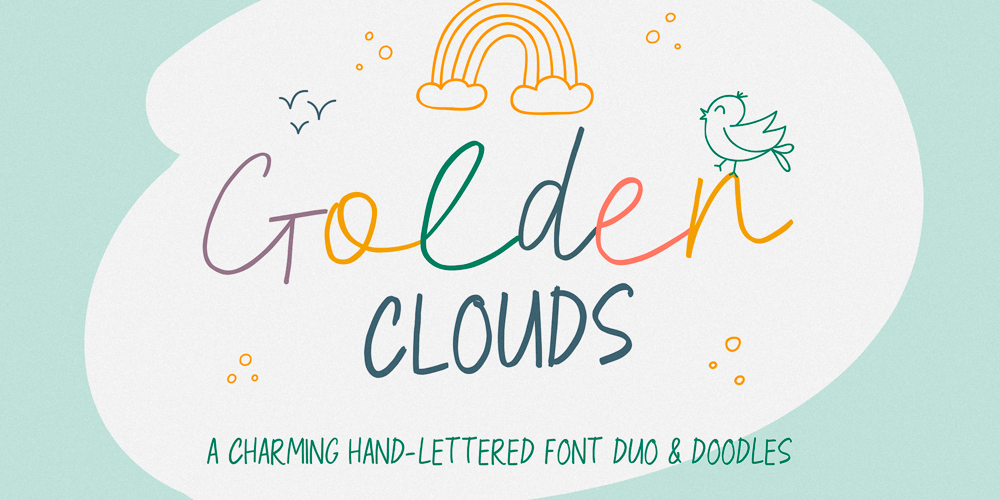
Golden Clouds
Golden Clouds font
Golden Clouds Font Family was designed by Anastasia Kuznetsova and published by Anastasia Kuznetsova. Golden Clouds contains 3 styles and family package options. Say hello to Golden Clouds 🙂 A charming and cute font duo with handwritten letters and doodles!!Bring some irresistible fun to your design with Golden Clouds Font Duo! This playful font duo consists of a fast-flowing signature font and a charming font with small capital letters as the perfect companion. But that’s not all – the set also includes a bonus Doodle font containing hand-drawn drawings designed to give your “Golden Clouds” fonts the appeal of handmade.Golden Clouds Script • A clean, smooth handwritten signature font containing uppercase and lowercase characters, numbers and a wide range of punctuation marks.Golden Clouds SmallCaps • Clean, charming handwritten font with capital letters.Golden Clouds Doodles • A set of hand-drawn drawings designed in combination with Script and Small Caps fonts. Just set it as your own font and enter any character to create each drawing.”Golden Clouds” is ideal for everyday use in greeting cards, illustrations, quotes, original branding, book covers, children’s books, packaging and much more :)Font Features: A-Z; a-z character set; 1 language (English); numbers and punctuation marks, symbols. Fonts can be opened and used in any software that can read standard fonts, even in MS Word. No special software is required to get started.It is recommended to use it in Adobe Illustrator or Adobe Photoshop.Made with love and magic ♡Thank you for reading it, and do not hesitate to send me a message if you have any questions!~ Anastasia